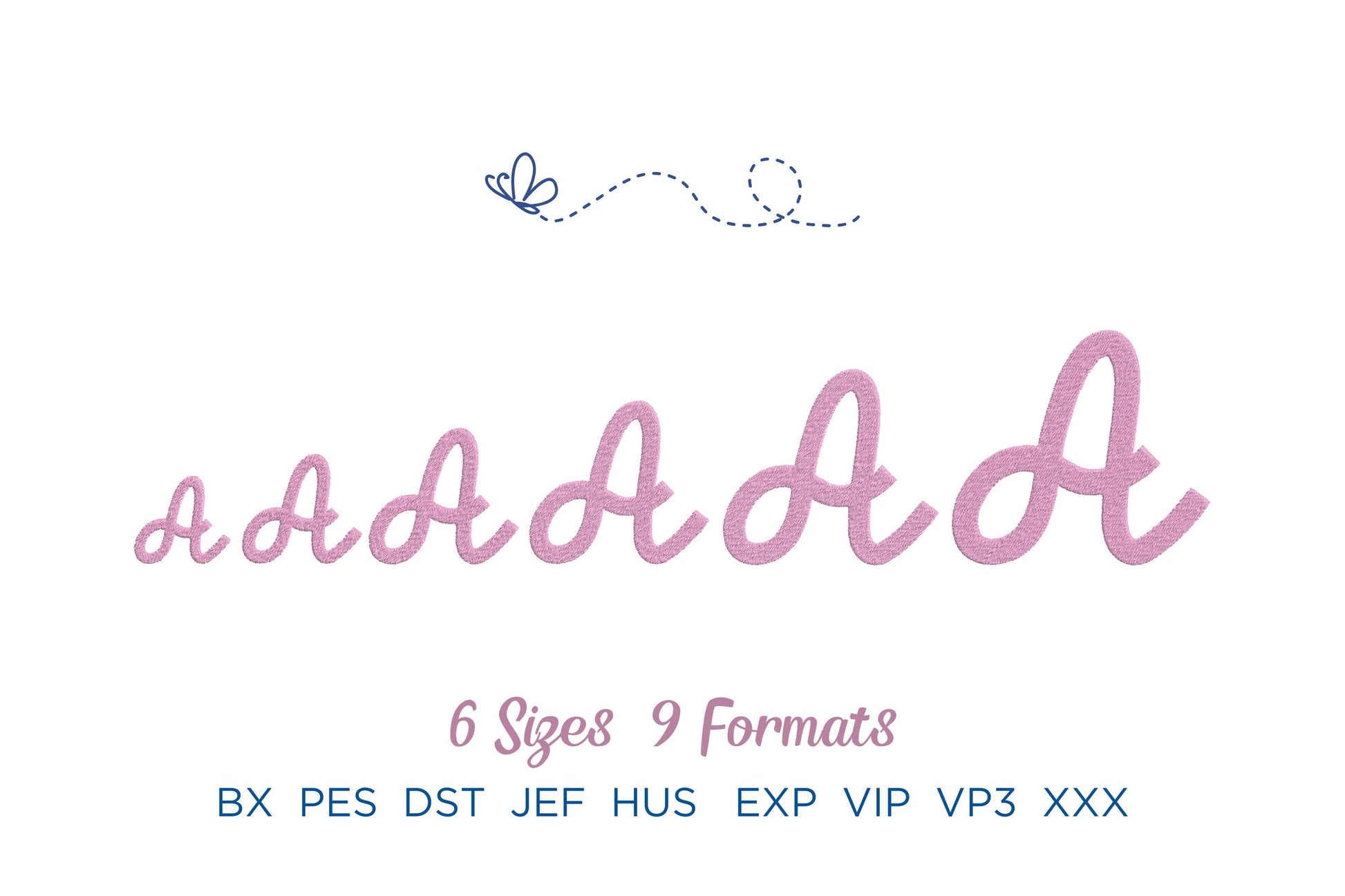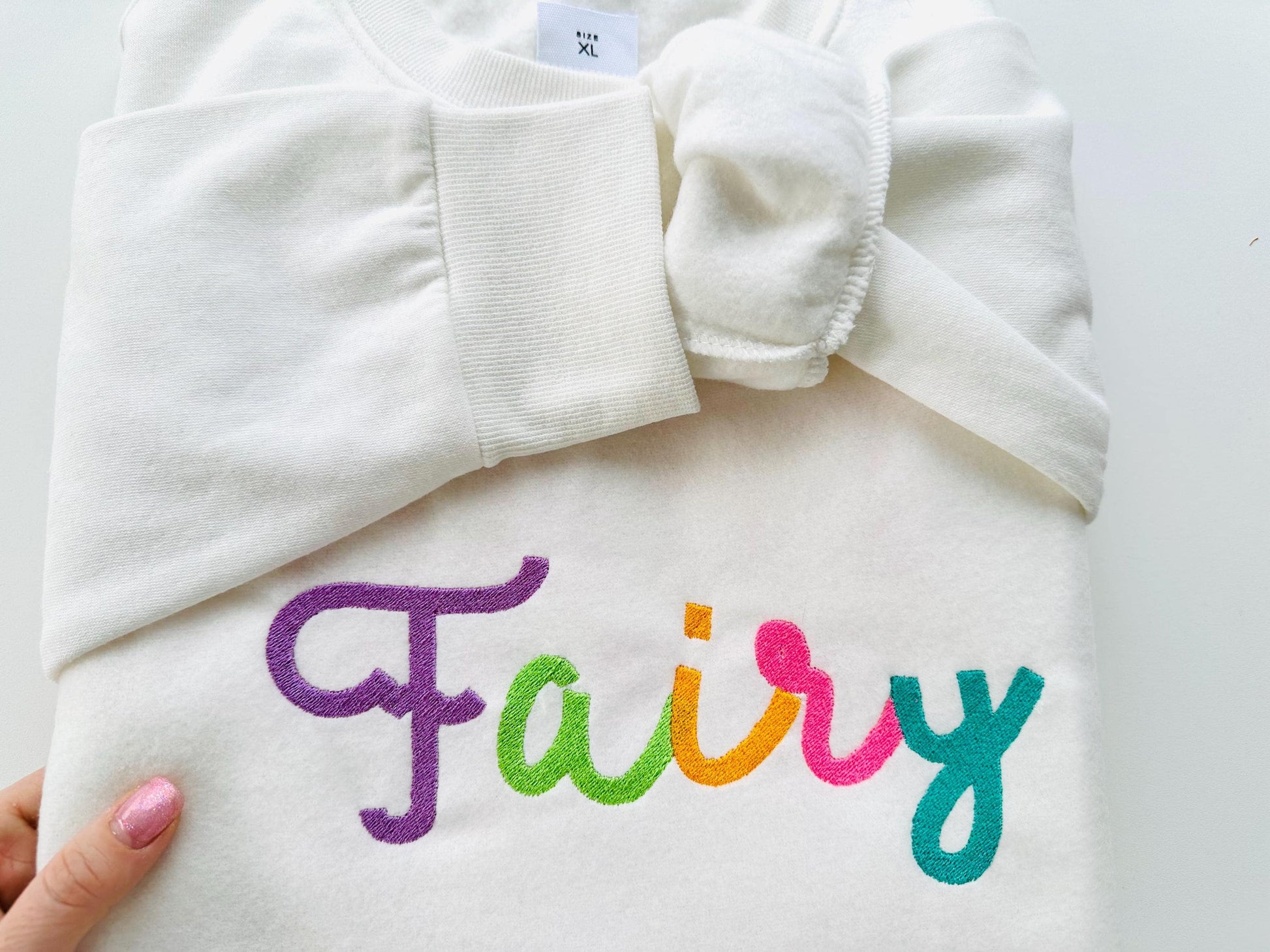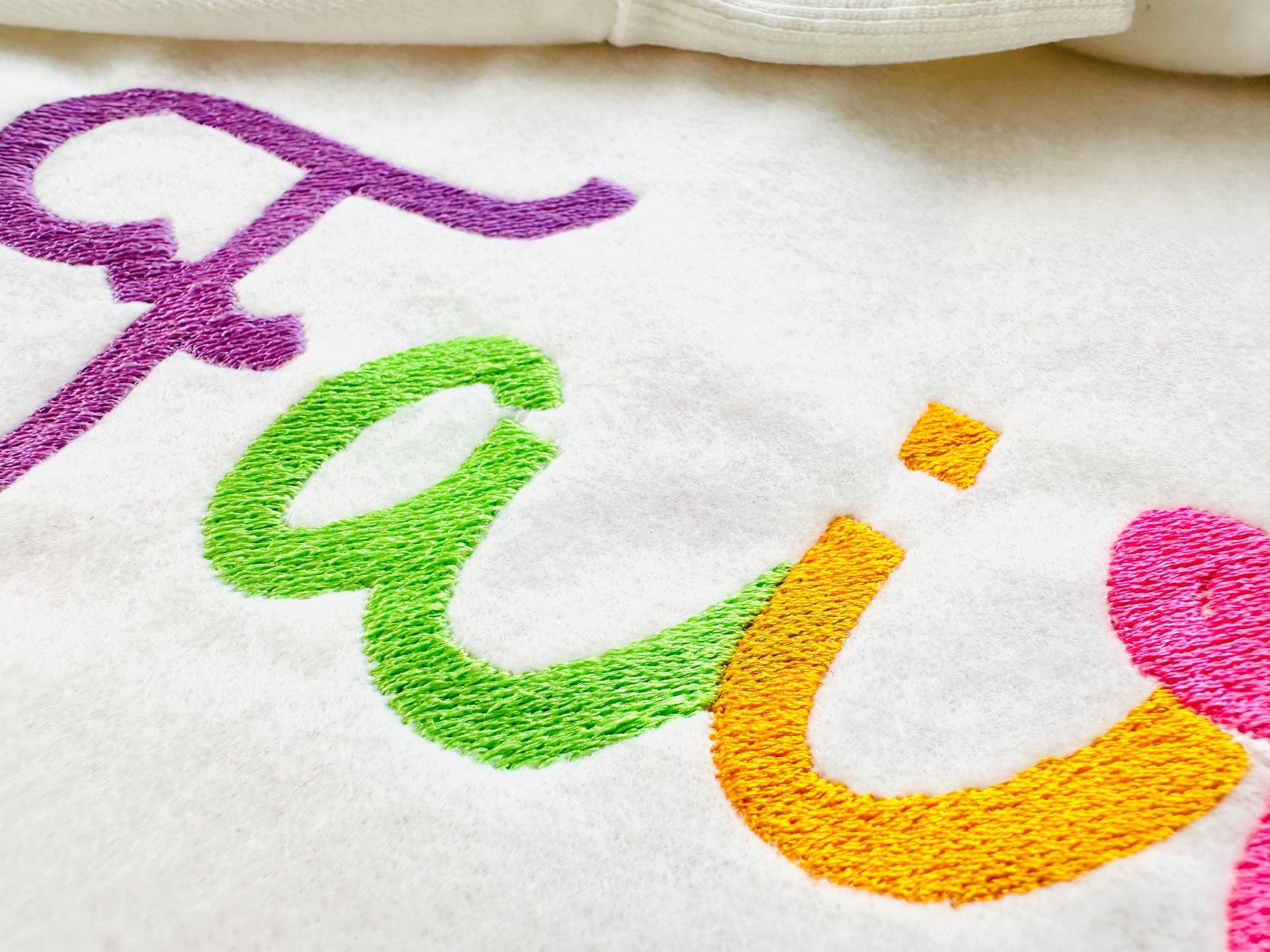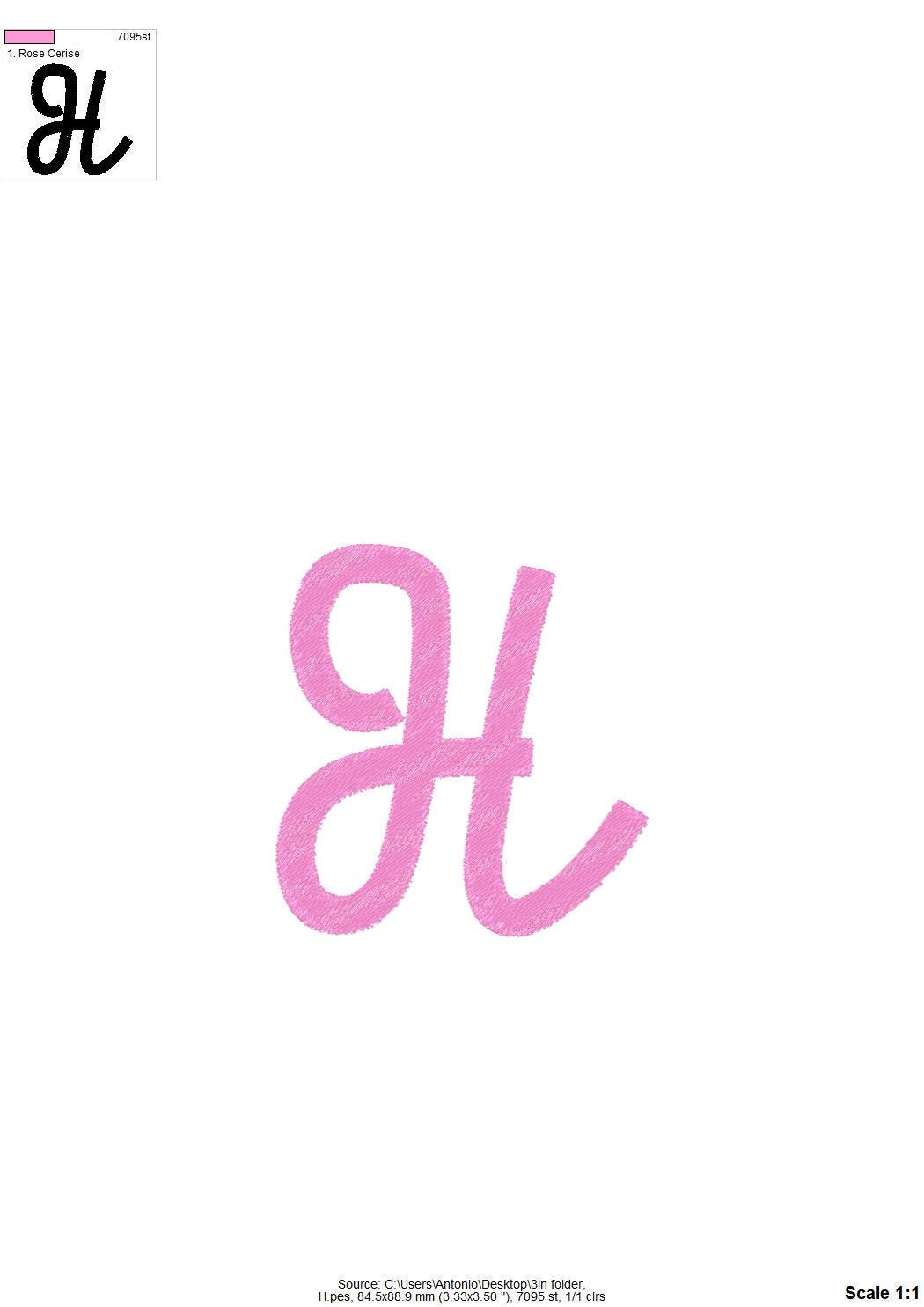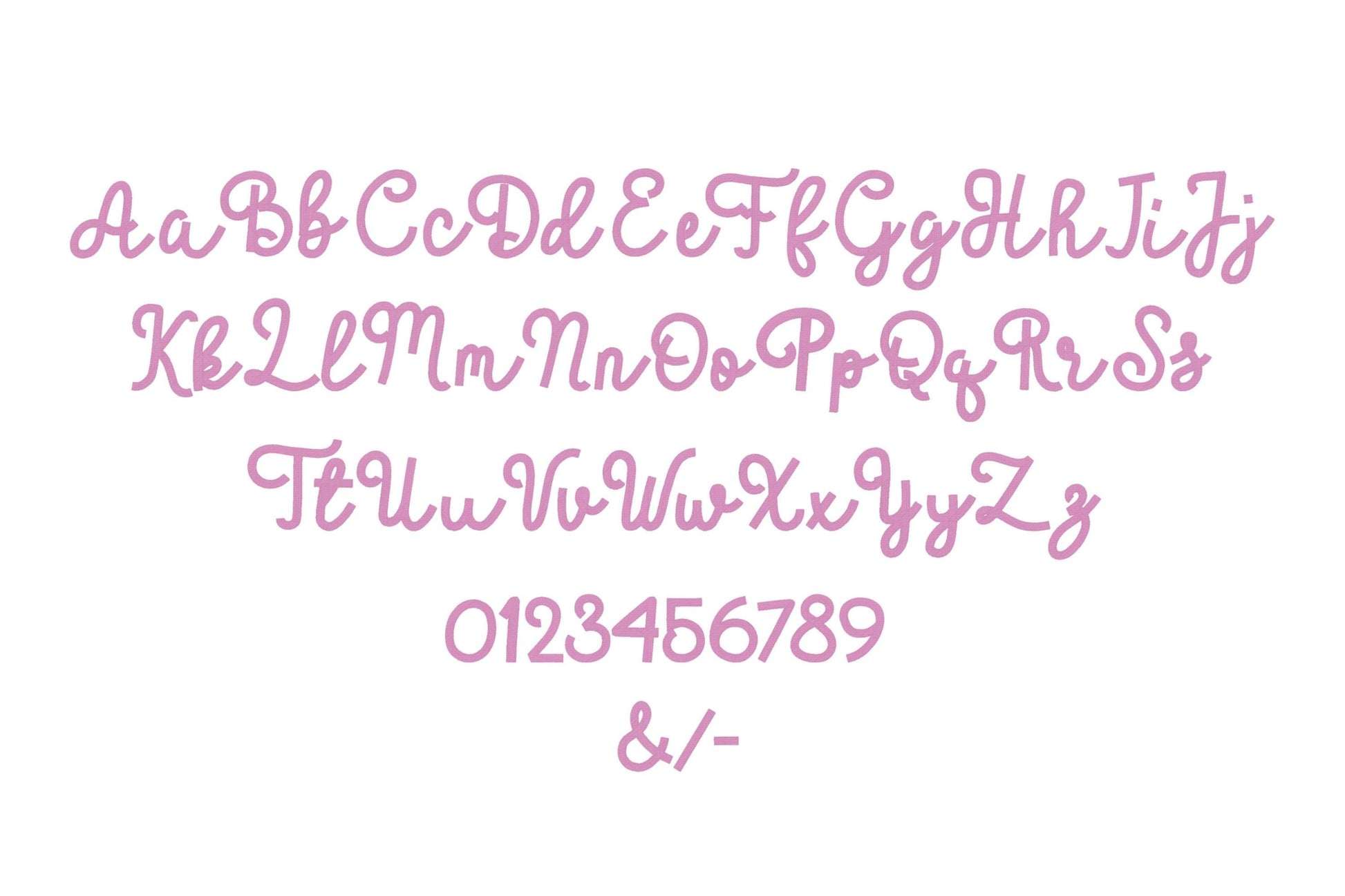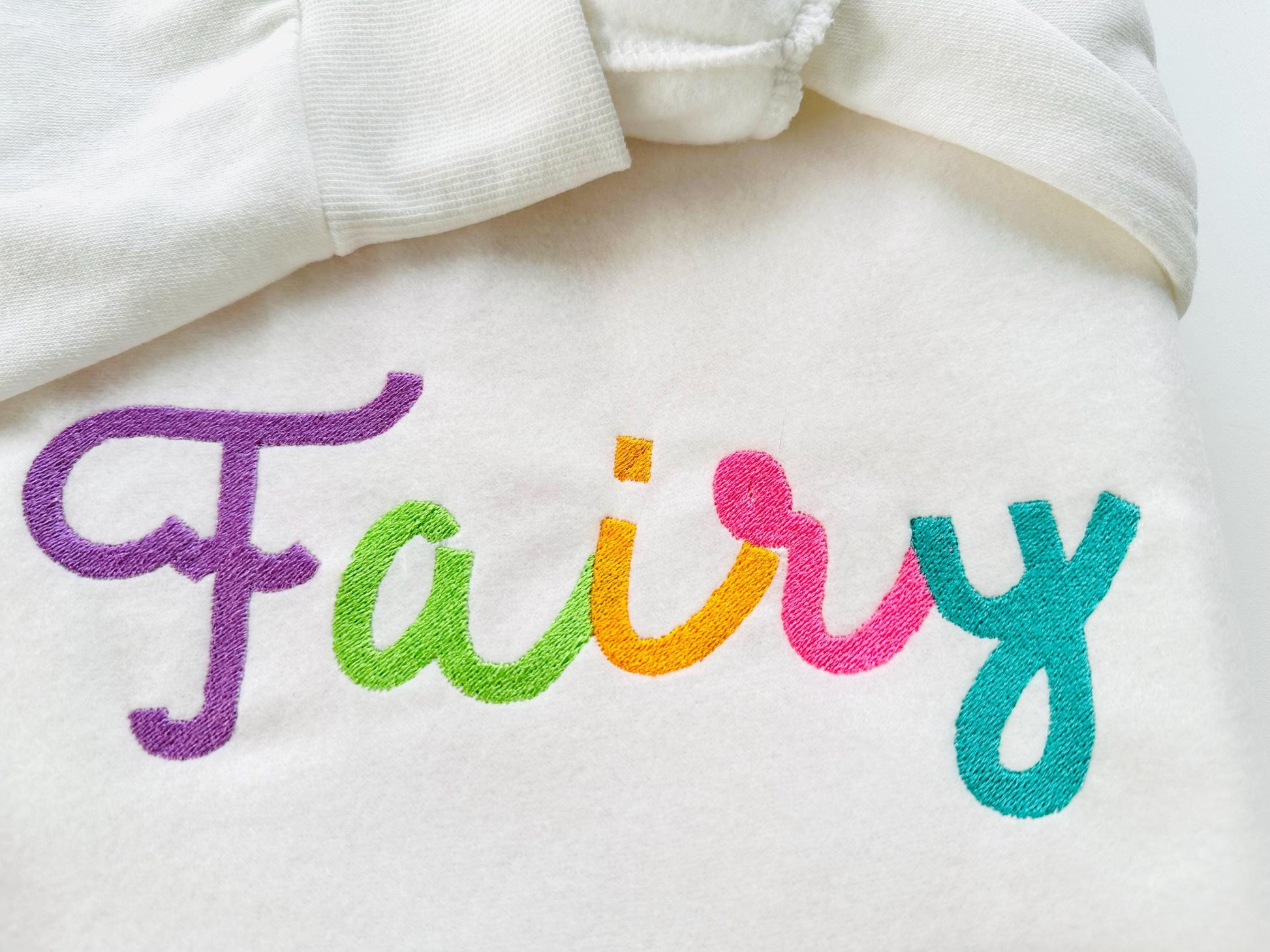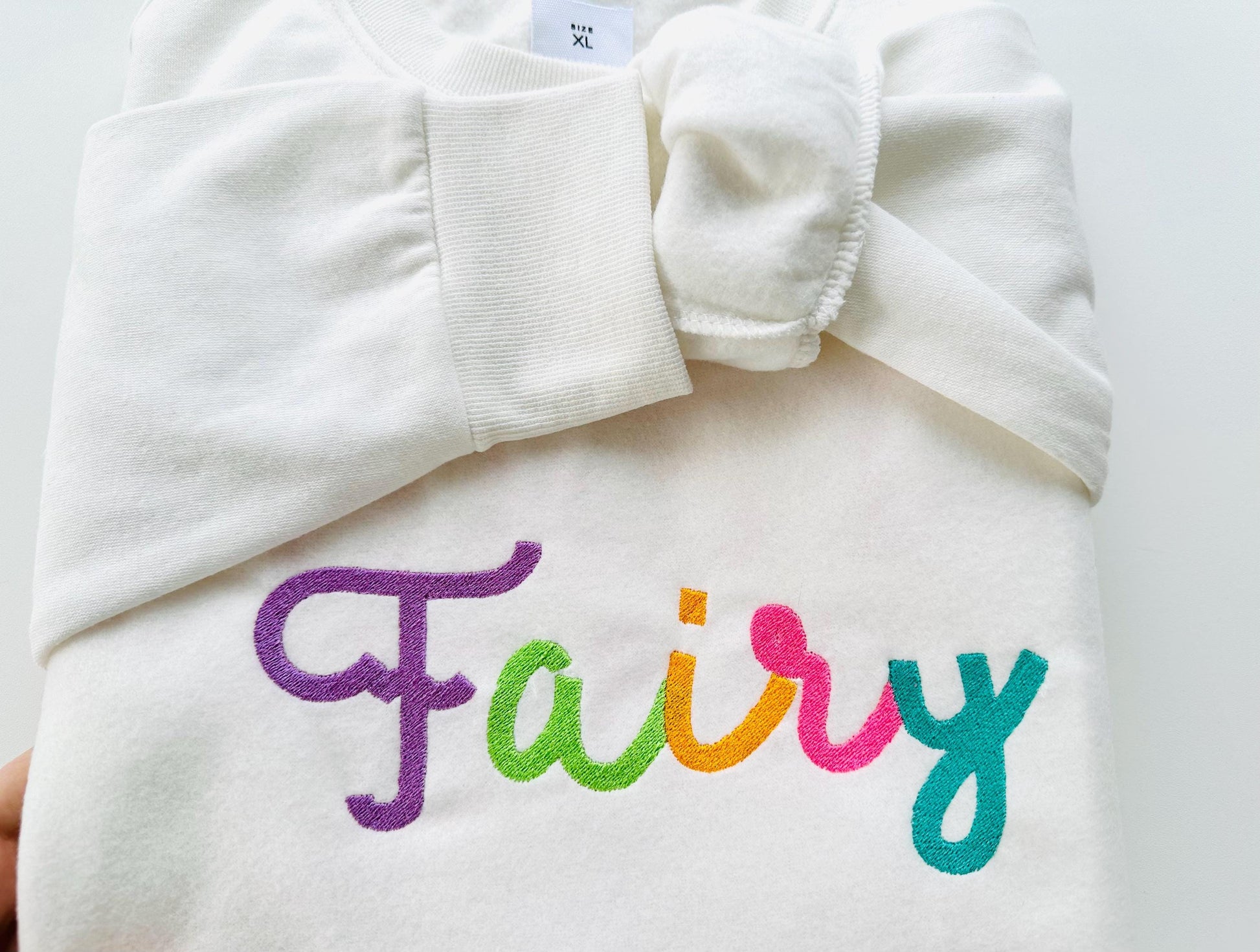
Fill Stitch Handwritten Font Tala
Or click to open the linkA handwritten script in fill stitch. Great for kids' names and monograms on shirts, bags, blankets and bibs.
Uppercase and lowercase letters, numbers 0 to 9, an ampersand, dash and slash. Six sizes: 1.6, 2, 2.5, 3, 3.6 and 4.3 inches.
- Fill stitch handwritten script font
- Uppercase, lowercase, numbers 0 to 9, punctuation
- 6 sizes, 1.6 to 4.3 in